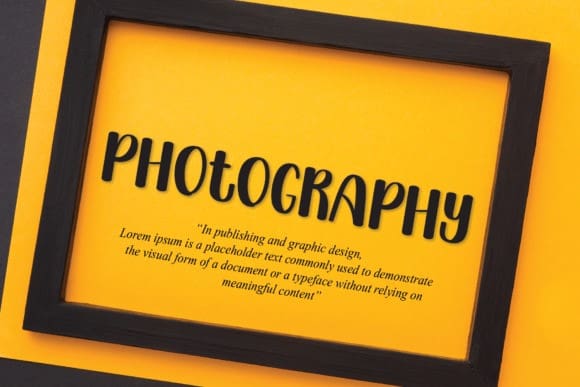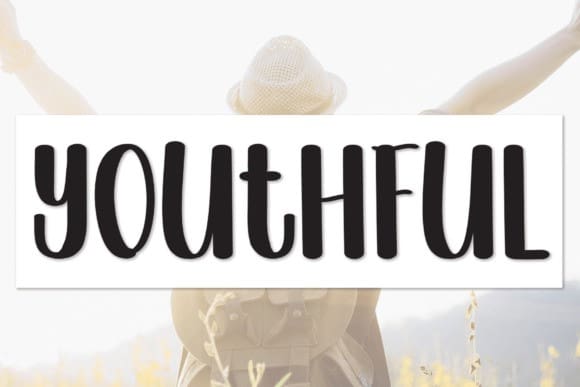
Youthful Cute Font
Youthful Cute Font is a cool and relaxed handwritten font. This versatile font has a wide spectrum of applications ranging from greeting cards to headlines and is guaranteed to add a neat and natural feel to your next project!